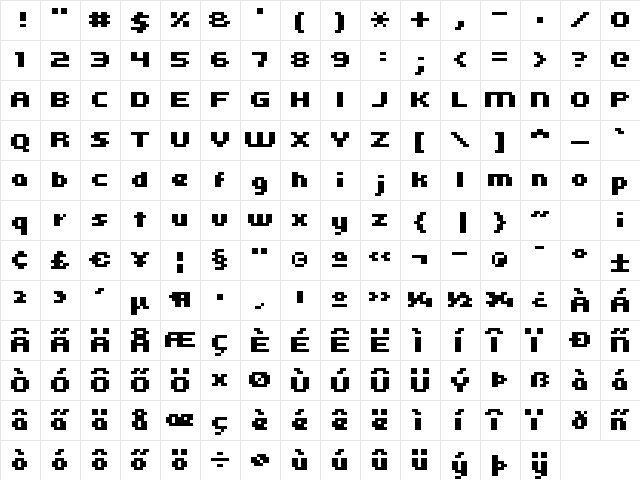
kroeger 05_64 Regular
| Designer | Craig Kroeger |
Design Context for kroeger 05_64 Typeface
kroeger 05_64 takes a measured approach to typography — its balanced proportions and neutral character make it a reliable workhorse for both digital and print work.